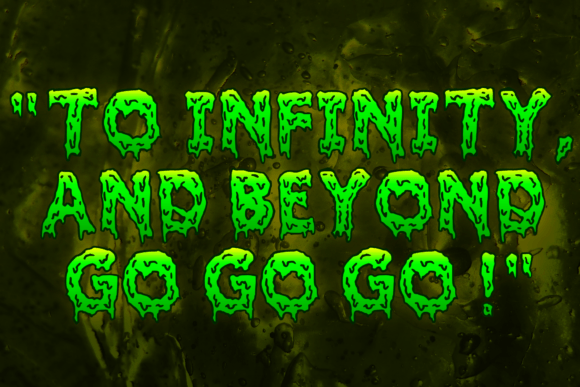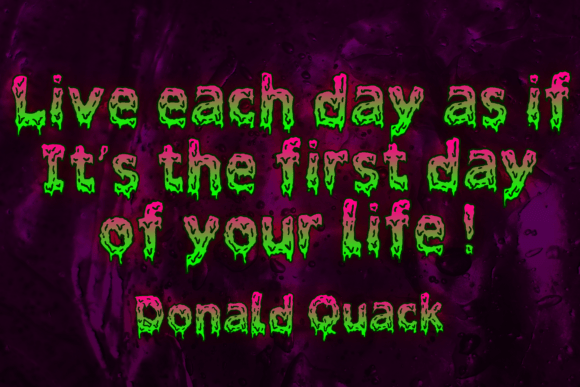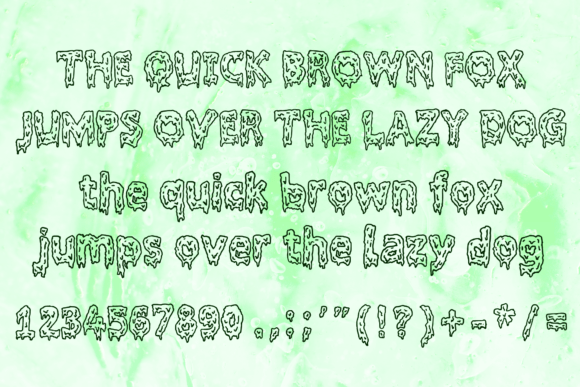
Unleash Your Creativity with Creature Slime Font: The Ultimate Display Font for Designers
Are you a designer or crafter looking for a unique and eye-catching font to elevate your design projects? Look no further than Creature Slime Font, a very cool slimy creature display font that is sure to take your designs to the highest level. With its slimy and playful texture, this font is perfect for a wide range of design projects, from stickers and t-shirt designs to logo designs, magazine covers, and more.
What Makes Creature Slime Font So Special?
Creature Slime Font is a one-of-a-kind display font that is designed to add a cool touch to your designs. Its slimy texture and creature-inspired aesthetic make it perfect for designers and crafters who want to create unique and eye-catching designs. Whether you’re working on a logo design, a sticker, or a magazine cover, this font is sure to make your design stand out from the crowd.
Endless Design Possibilities with Creature Slime Font
One of the best things about Creature Slime Font is its versatility. This font can be used for a wide range of design projects, including:
- Stickers: Add a slimy touch to your stickers with Creature Slime Font.
- T-shirt designs: Create eye-catching t-shirt designs that are sure to turn heads.
- Logo designs: Use Creature Slime Font to create a unique and memorable logo for your brand.
- Magazine or book covers: Add a touch of whimsy to your magazine or book covers with this fun and playful font.
- Comics and cartoon drawings: Bring your comic characters to life with Creature Slime Font.
Why Choose Creature Slime Font?
So why choose Creature Slime Font over other display fonts? Here are just a few reasons why this font stands out:
- Unique and eye-catching: Creature Slime Font is a one-of-a-kind font that is sure to grab attention.
- Versatile: This font can be used for a wide range of design projects.
- High-quality: This font is designed to be high-quality and print-ready, so you can use it for professional designs.
Tips for Using Creature Slime Font
Here are a few tips for using Creature Slime Font in your designs:
- Experiment with different colors: Creature Slime Font looks great in a variety of colors, so don’t be afraid to experiment and find the perfect color for your design.
- Pair with other fonts: Creature Slime Font can be paired with other fonts to create a unique and interesting design.
- Use it sparingly: Because Creature Slime Font is a display font, it’s best to use it sparingly to add emphasis to your design.
If you’re looking for a unique and eye-catching font to elevate your design projects, look no further than Creature Slime Font. With its slimy texture and creature-inspired aesthetic, this font is perfect for designers and crafters who want to add a cool touch to their designs. Whether you’re working on a sticker, t-shirt design, logo design, or magazine cover, Creature Slime Font is sure to make your design stand out from the crowd.